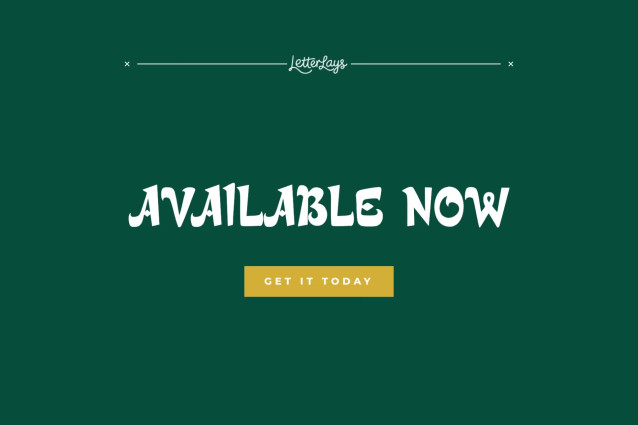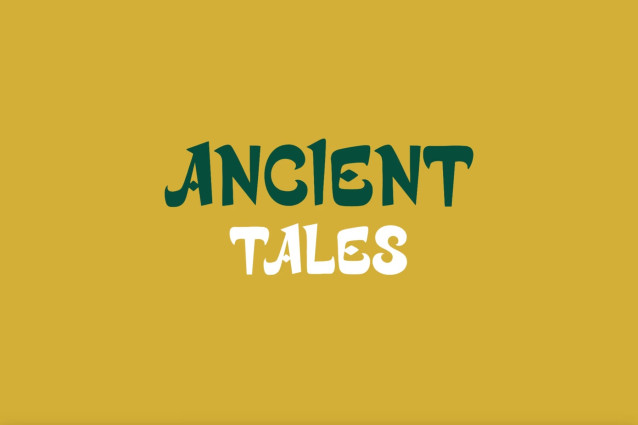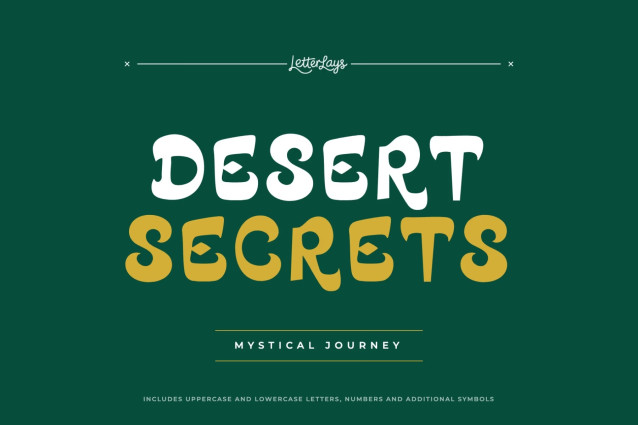
Desert Secrets is a premium mystery-inspired font crafted for creative professionals who demand mystical charm and elegance in their typography. This versatile typeface features elegant Arabic-inspired curves and an ethnic script aesthetic, making it an essential tool for mystical branding, Arabian editorial design, and high-impact digital projects. Each character is designed with a specific flow that adds a sophisticated yet mysterious touch to your visual narratives.
🌙 The font’s unique glyphs and ornamental additions provide a state-of-the-art look that stands out in any professional environment. Whether you are creating a bespoke logo or a mysterious headline, Desert Secrets offers the flexibility and professional polish needed to make your work truly memorable. Integrate this high-quality asset into your workflow to achieve a seamless blend of ethnic style and mysterious storytelling power across all your designs. 🌙